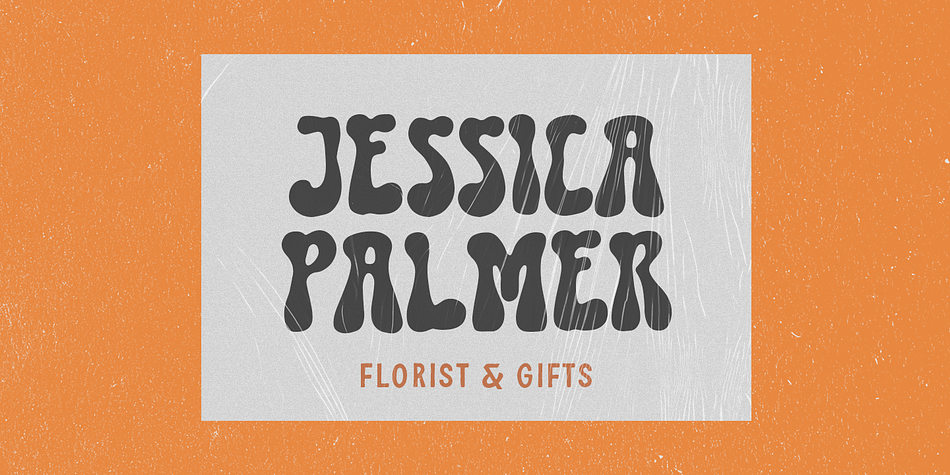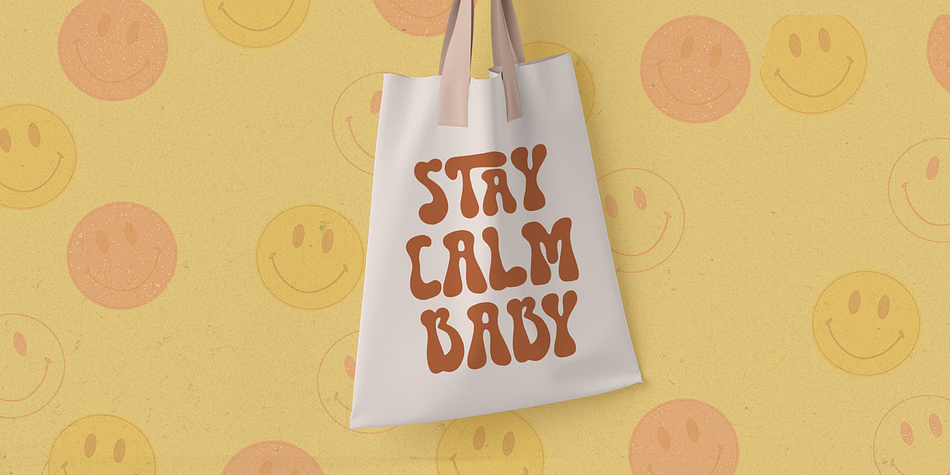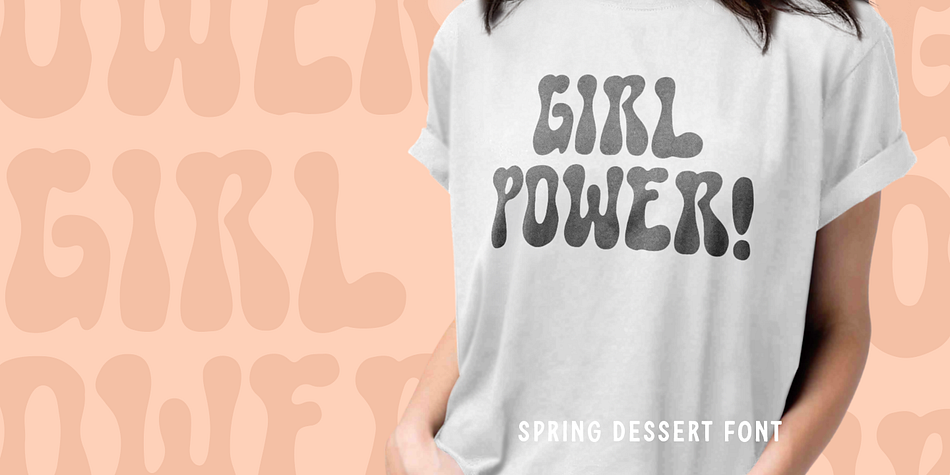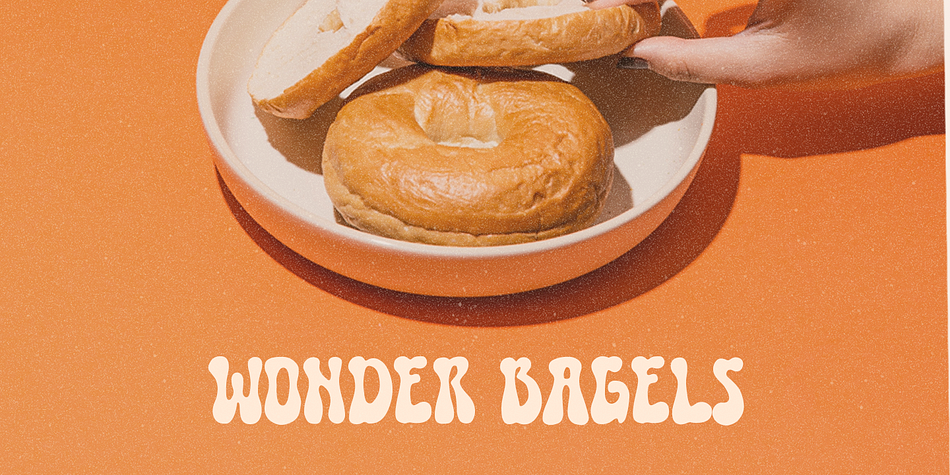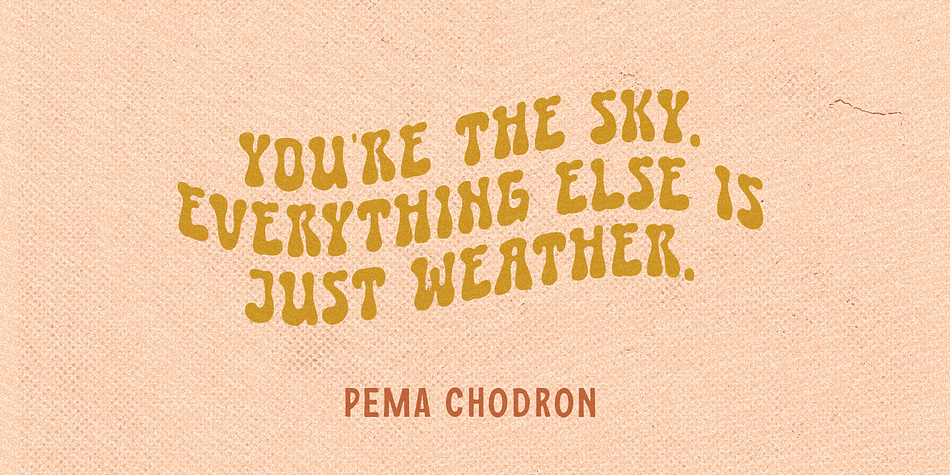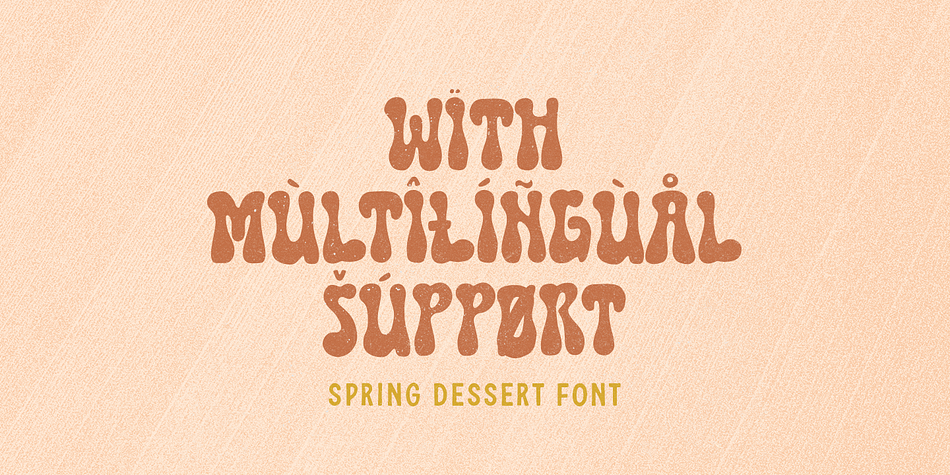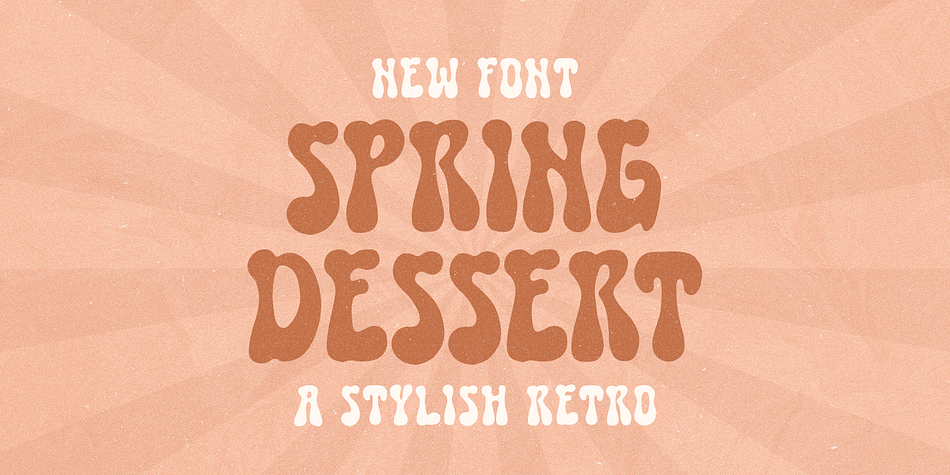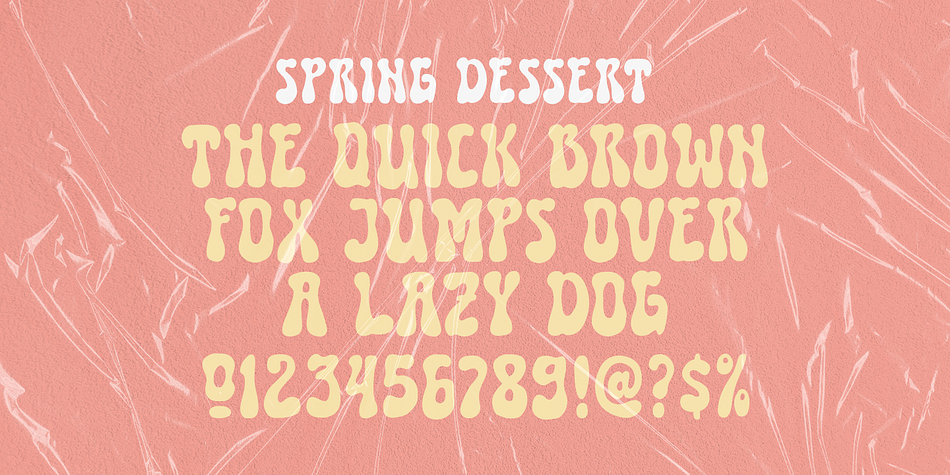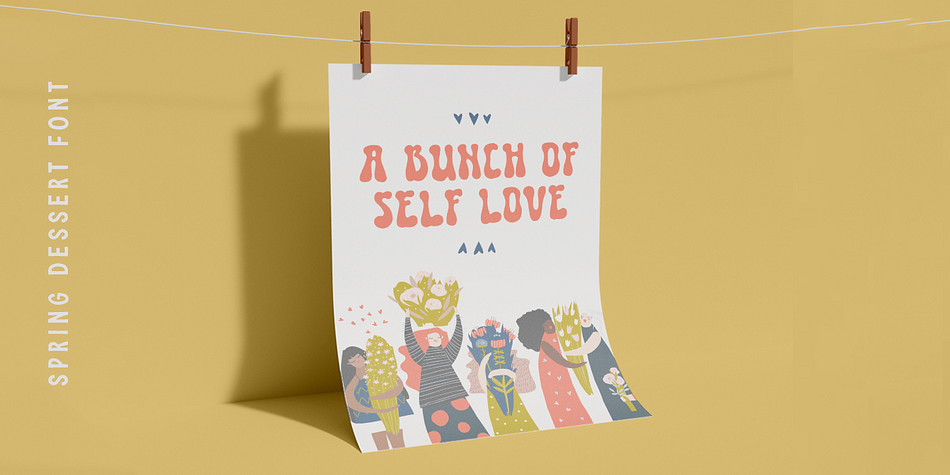
Designed by Hendry Juanda, Spring Dessert is a retro font family published by Letterhend Studio.
Spring Dessert is stylish retro font with bubbly touch.This font perfectly made to be applied especially in logo, and the other various formal forms such as invitations, labels, logos, magazines, books, greeting / wedding cards, packaging, fashion, make up, stationery, novels, labels or any type of advertising purpose.